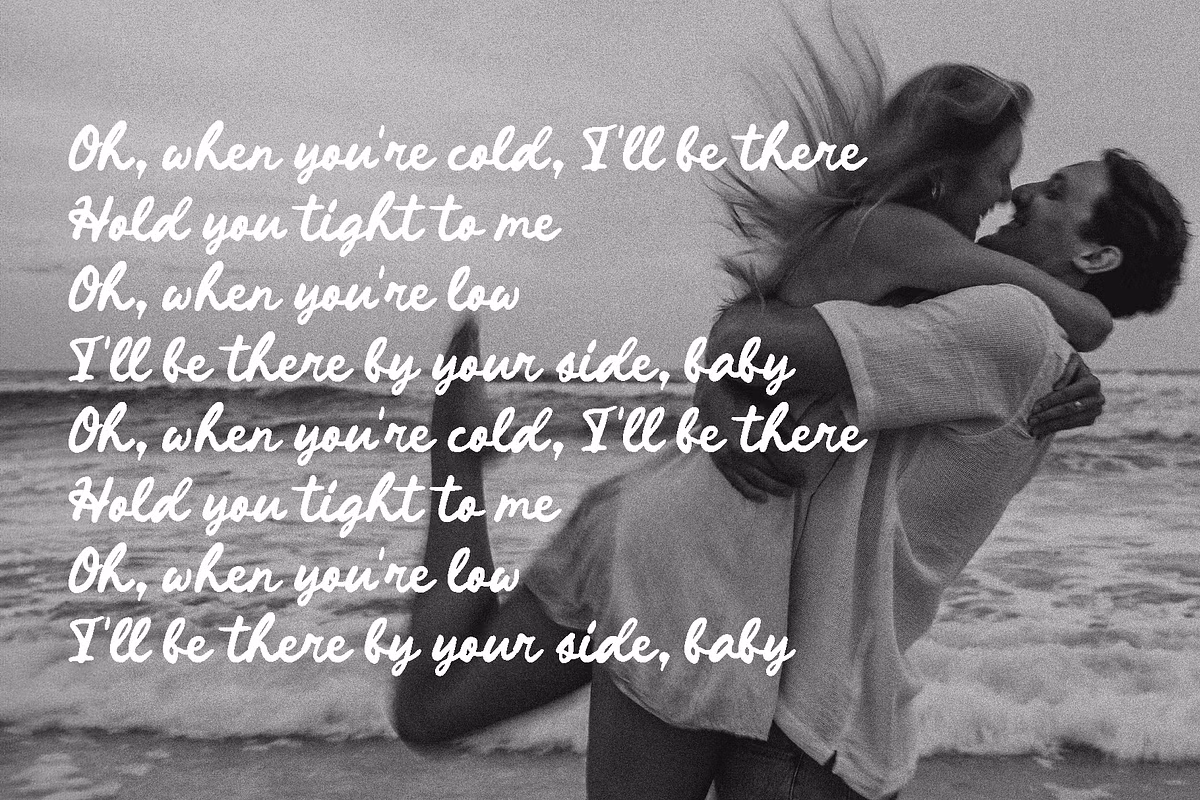
Introducing the Elegant Vintage Handwritten Font
This font is really nice and fancy, it adds a touch of class to anything you’re making. It’s like a pretty, old-fashioned handwriting style, but still looks modern and cool. If you’re making things like party invitations, logos, or Christmas cards, this font is perfect because it makes your work look special and stand out from the rest. It’s great for people who like old-school style with a bit of a modern twist.
Design Style of the Elegant Vintage Handwritten Font
The Elegant Vintage Handwritten Font has a unique design style that is marked by its smooth, natural lines, which are reminiscent of traditional handwriting. Every character in this font is carefully crafted to give off an air of sophistication and nostalgia, making it a great fit for projects that need a personal touch and a bit of creativity. Because of its relaxed but polished look, this font can convey a sense of warmth and friendliness, which is crucial for making designs that draw people in and keep them interested.
With its beautiful, flowing lines, the Elegant Vintage Handwritten Font is perfect for adding a touch of elegance to any project, whether it’s a formal invitation or a casual social media post. The font’s ability to evoke a sense of nostalgia and timelessness makes it a great choice for designers who want to create something truly special and memorable. Overall, the Elegant Vintage Handwritten Font is a great tool for anyone who wants to add a bit of personality and style to their designs.
This font is really special because it mixes big and small letters in a cool way, so you can use it in lots of different ways. The way the letters flow into each other and the little imperfections in the lines make it look like it was written by hand, which makes it feel genuine and easy to connect with. Using this font is a great way to add some personality to your projects, whether it’s a poster, a card, or something else, and it helps your work feel polished and personal at the same time. It’s perfect for making your creations stand out and giving them a touch of warmth and character.
Character Sets and Multilingual Support
One of the standout features of the Elegant Vintage Handwritten Font is its comprehensive character set. This font includes a wide variety of glyphs, symbols, and punctuation marks, allowing you to express your ideas fully. Additionally, it offers multilingual support, making it suitable for a global audience. You can use this font in different languages without sacrificing the aesthetic quality of your designs.
Having a multilingual font is particularly beneficial for projects such as wedding invitations or international branding, where you may need to cater to diverse audiences. The Elegant Vintage Handwritten Font ensures that you can elegantly communicate your message, regardless of the language.
Use Cases for the Elegant Vintage Handwritten Font
The Elegant Vintage Handwritten Font is incredibly versatile and can be used in numerous creative projects. Here are some of the most popular use cases:
- Invitation Cards: Whether for weddings, birthdays, or other special occasions, this font adds a personal touch to your invitations, making them memorable.
- Logos: Create unique brand identities with this font, adding a handcrafted feel that resonates with customers.
- Home Decor: Use the font for wall art or decals to bring a cozy, personal vibe to your living spaces.
- Product Packaging: Make your product stand out with this font on the packaging. It will look really good and be different from others.
- Party Decorations: From banners to table settings, this font can elevate your party aesthetics and make your events feel special.
Each of these use cases highlights the font’s ability to adapt to different contexts, enhancing the overall design with its elegant and vintage style.
Pairing Suggestions for the Elegant Vintage Handwritten Font
To maximize the impact of the Elegant Vintage Handwritten Font, consider pairing it with complementary typefaces. Here are some suggestions to guide you:
- Serif Fonts: Pair the Elegant Vintage font with classic serif typefaces like Times New Roman or Garamond. The contrast between the handwritten style and the structured serif creates a balanced and harmonious design.
- Sans-Serif Fonts: For a fresh look, try using a simple sans-serif font like Helvetica or Arial. This combination creates a nice balance between style and readability.
- Script Fonts: For a more playful feel, try pairing it with another script font that has a similar flow and style. Just make sure the second font doesn’t overpower the main text.
So, whether you’re working on invitations, logos, or things for your home, this font is a great way to add a touch of elegance to your work and make your vision a reality. It’s versatile, easy to use, and can really help you create something unique and special.